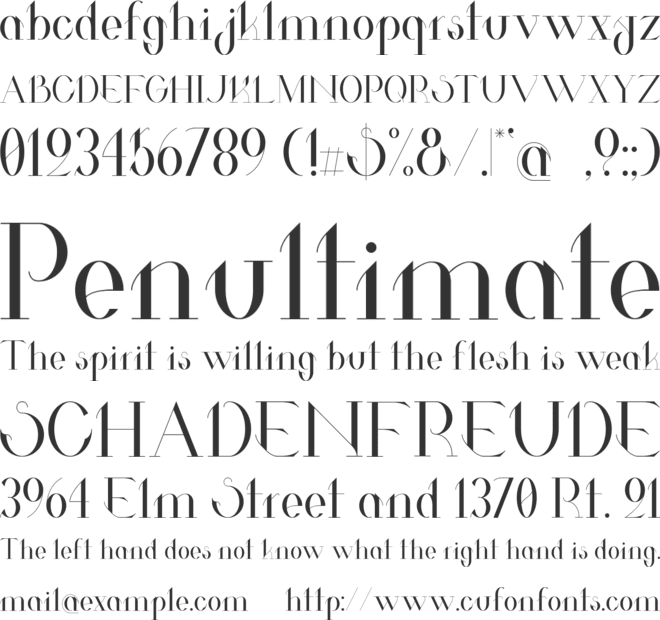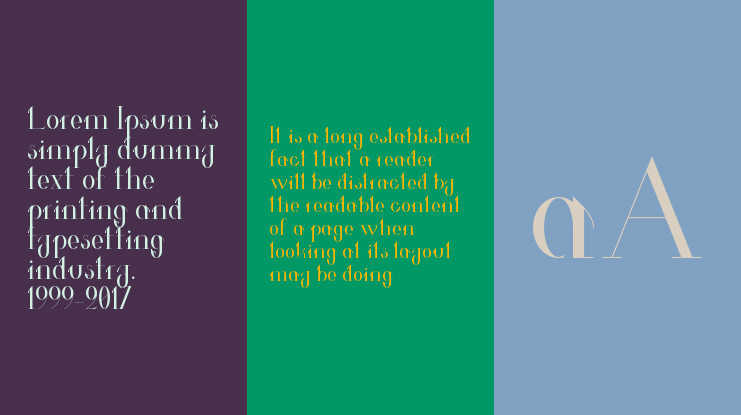
Valkyrie Font Family
Hendrick Rolandez
Valkyrie is a new type family designed in 2013 mostly for top fashion brands and designers. This is a serif set of fonts based on thick and bold parts with geometrical elements in a modern style. With more than 186 glyphs per font (including punctuation marks and accented glyphs) for a total of 12 fonts, Valkyrie has been created to emphasize all kind of fashionable and luxury projects from photos to videos or branding & visual identity.